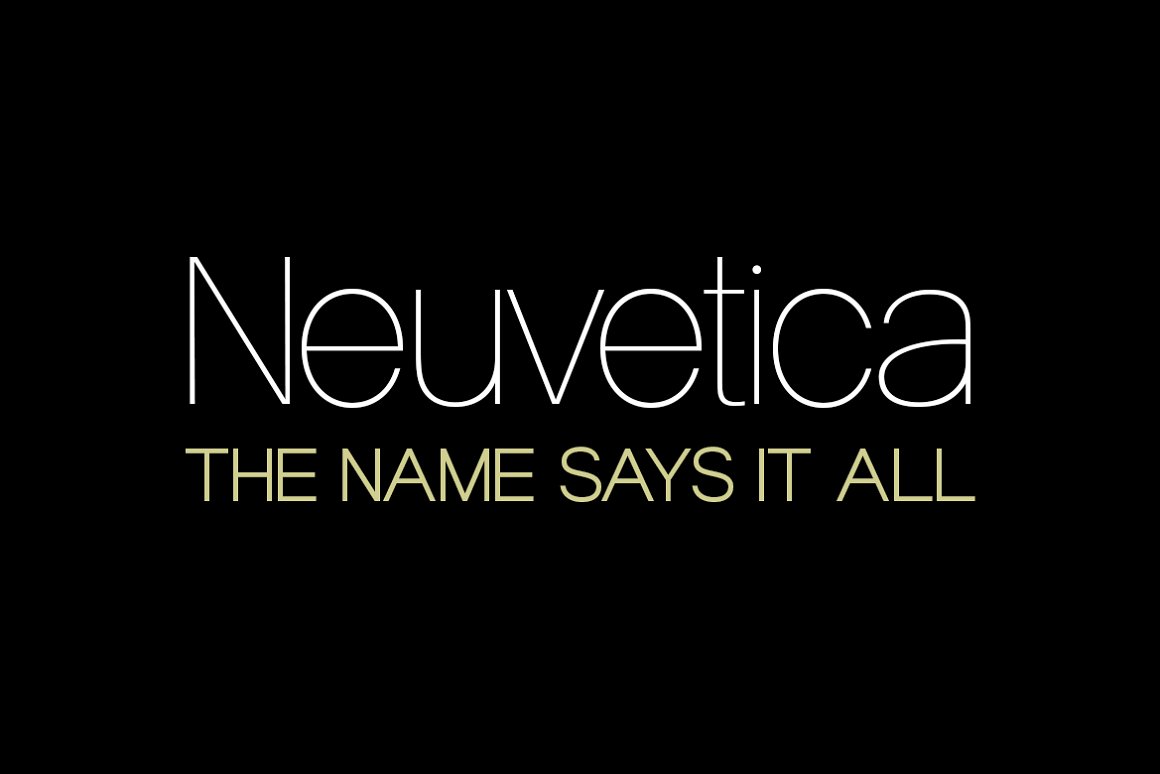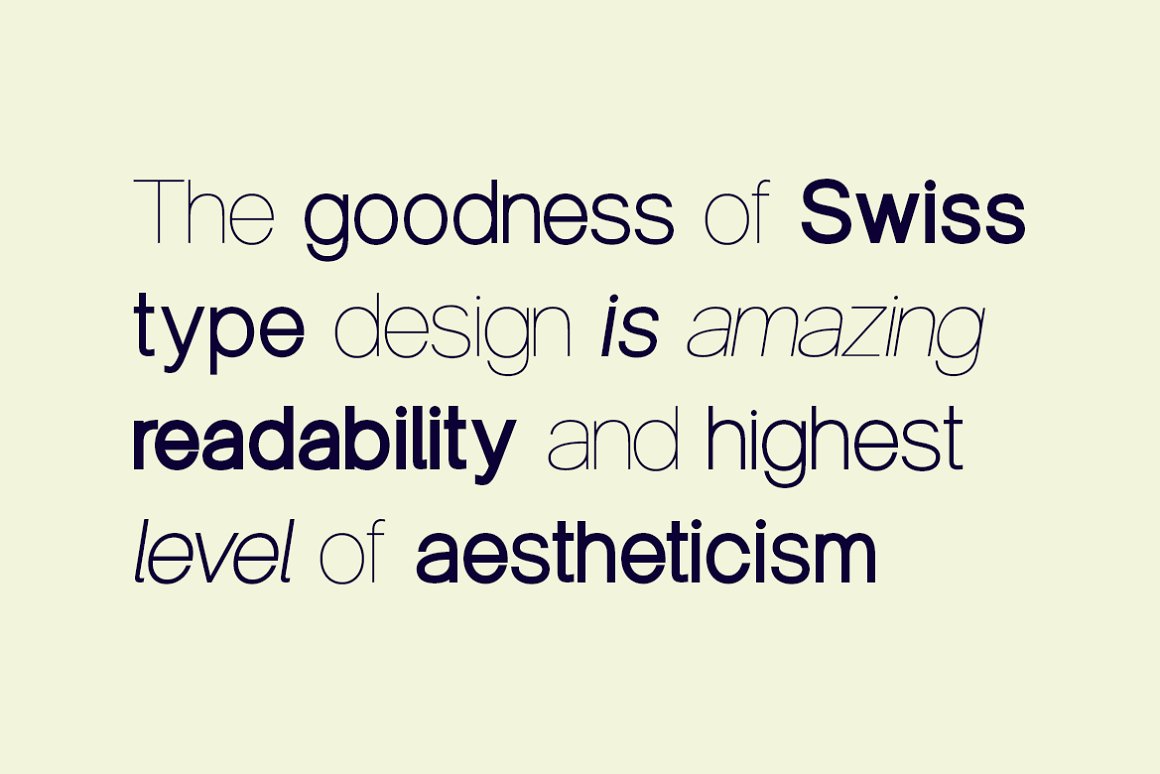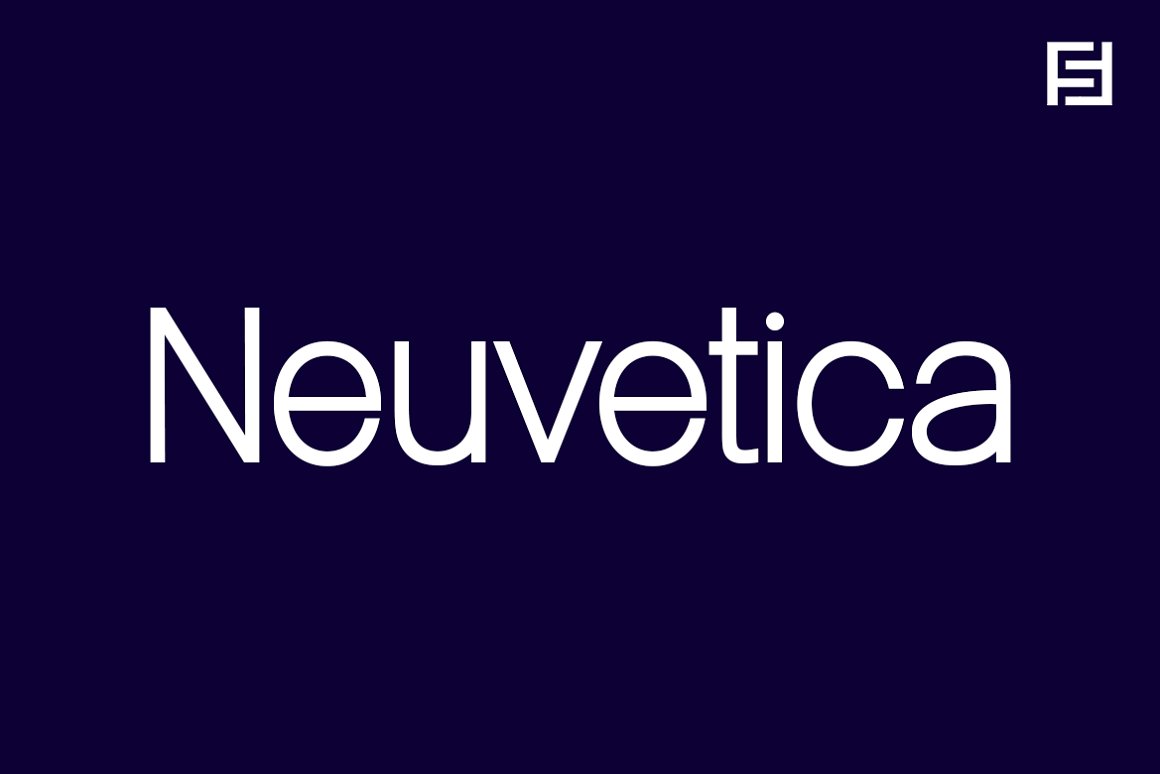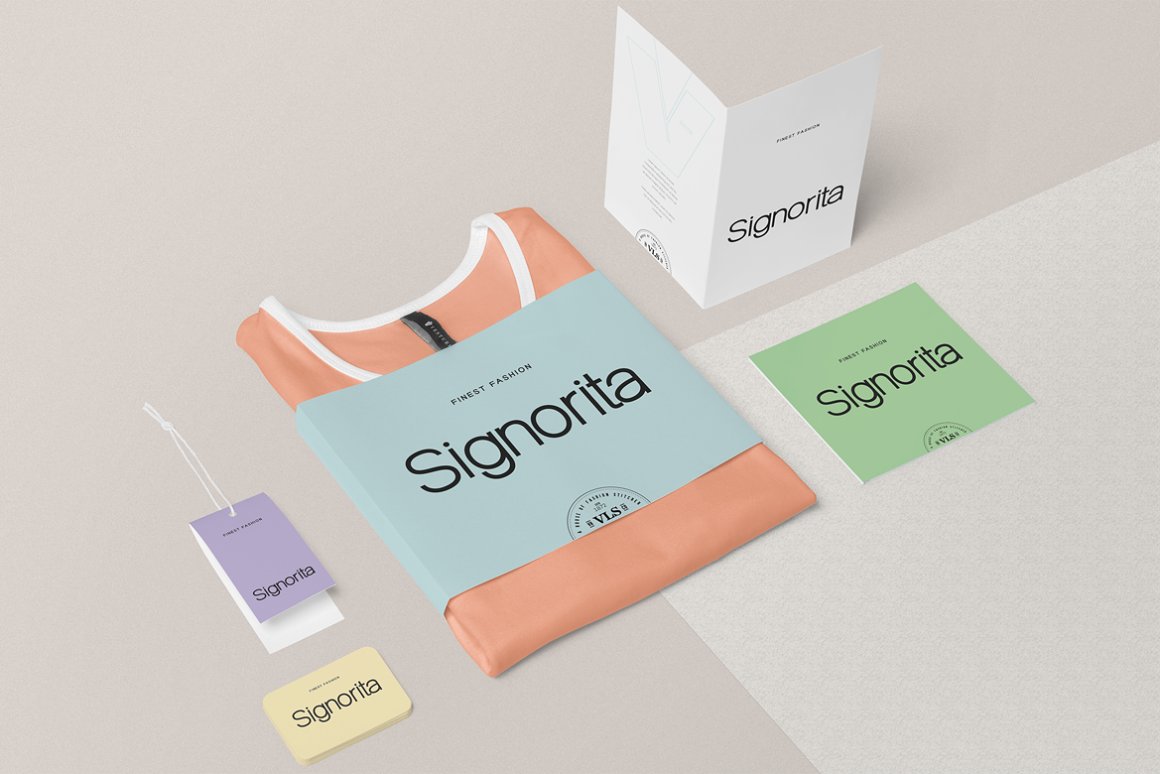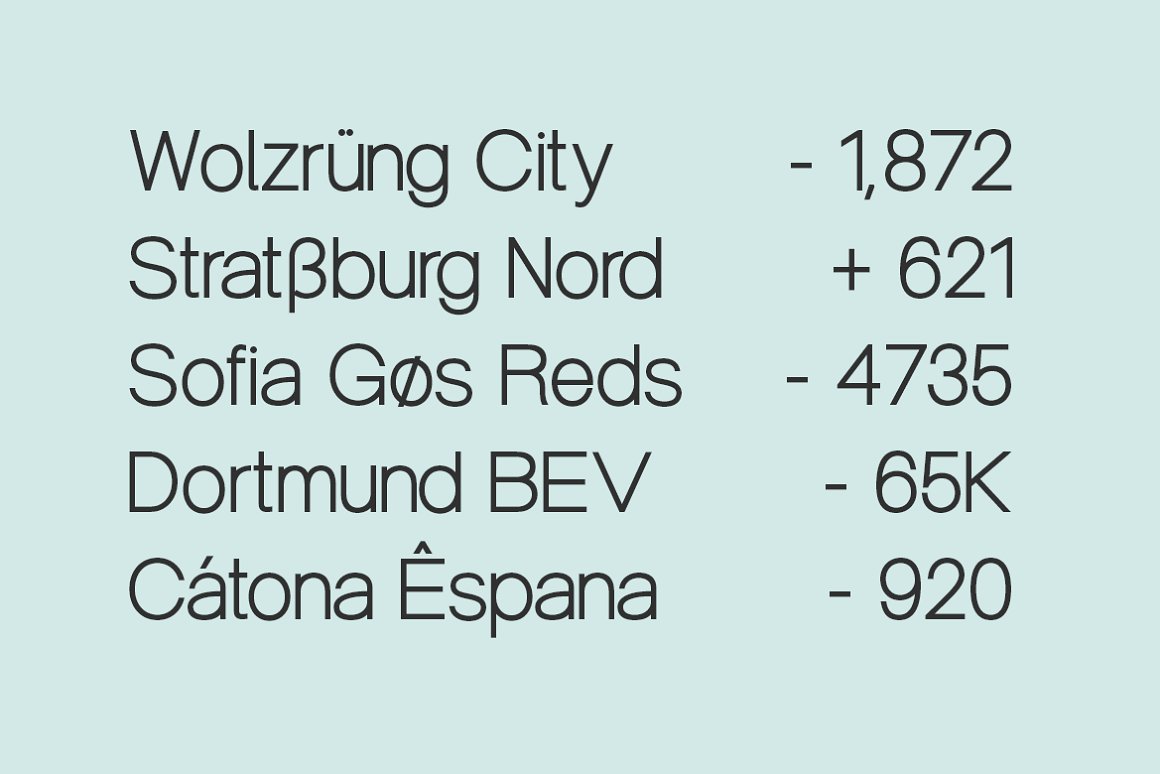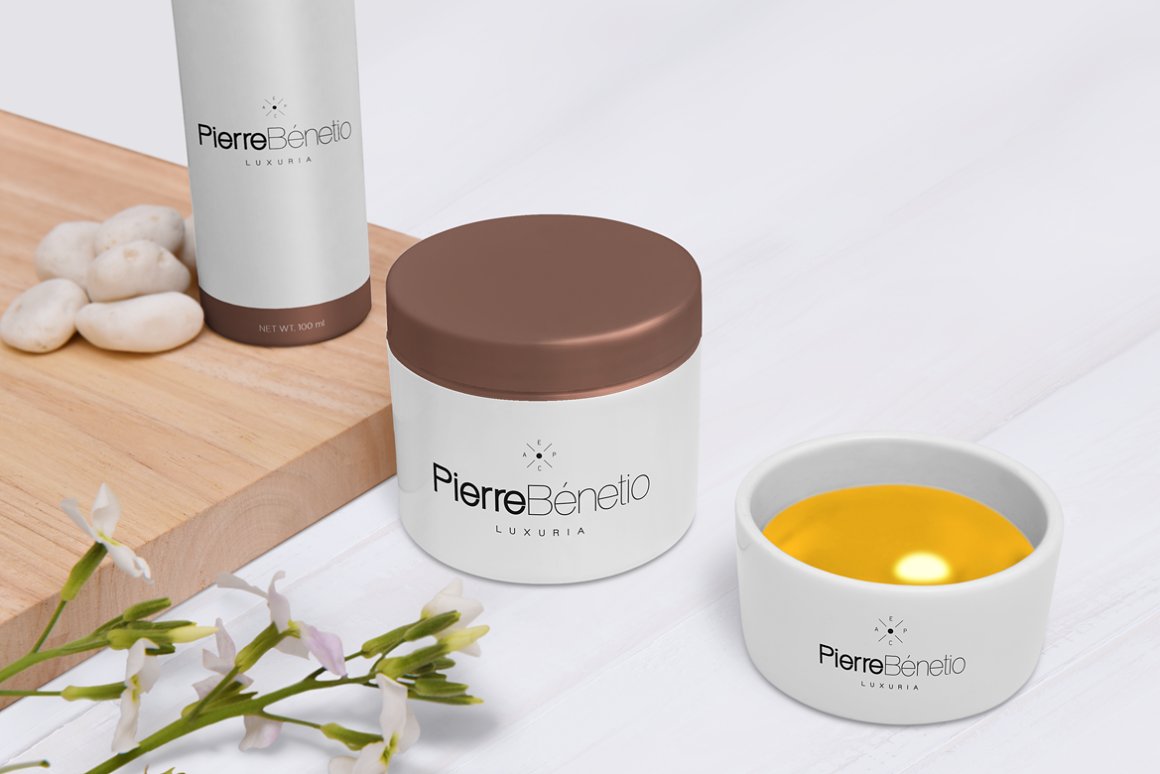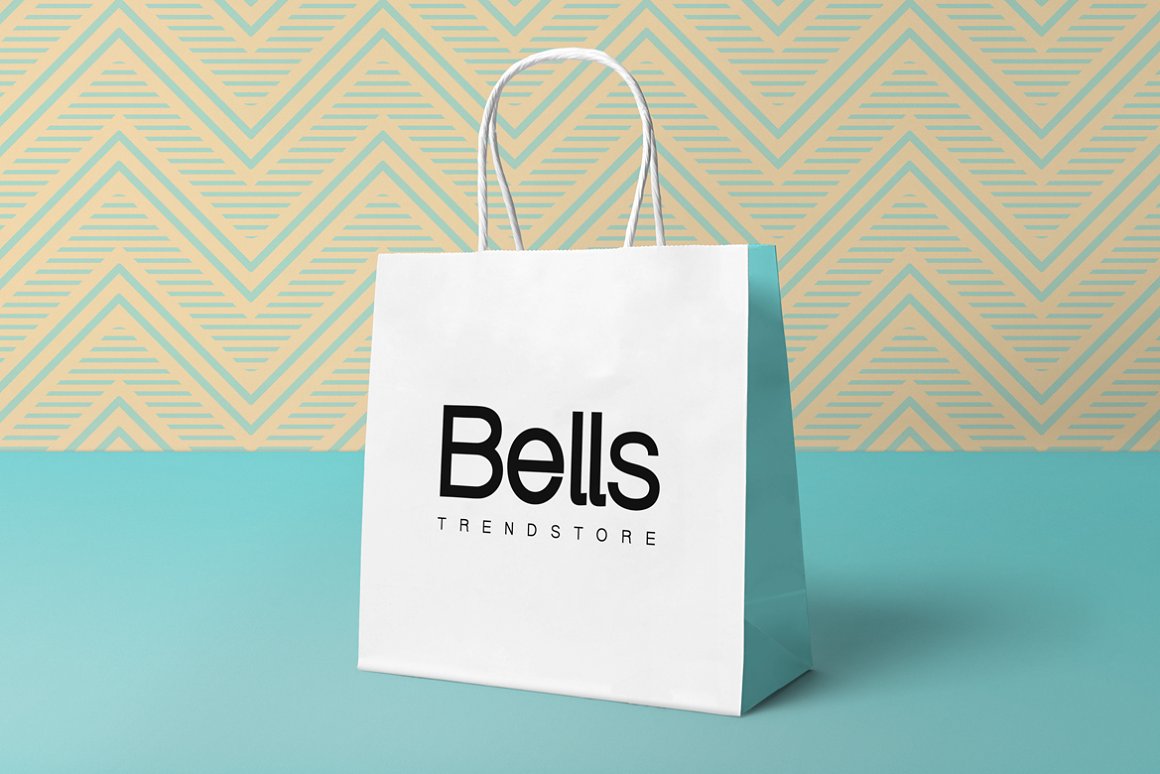
Neuvetica - Authentic Swiss Typeface
Neuvetica is a timeless sans-serif typeface with bespoke Swiss design with the finest level of aestheticism. The typeface is created with 800+ hours of dedicated artistic production process which itself proves how extensive the type design is. This is our idea of a perfect Sans-Serif typeface and we named it Neuvetica - a name that can say it all.
Handcrafted and designed with powerful opentype features in mind, each weight includes extended language support including Western European & Central European sets. A total of 330 glyphs are included.
Neuvetica is a perfect choice for graphic design, text presentation, web design, print and display use. The typeface can be an amazing option for beautiful branding, logo / logotype design projects, marketing graphics, banners, posters, signage, corporate identities as well as for editorial design. Adding extra letter-spacing for the Caps will make this font perfect for minimal headlines and logotypes as shown in promo images here.